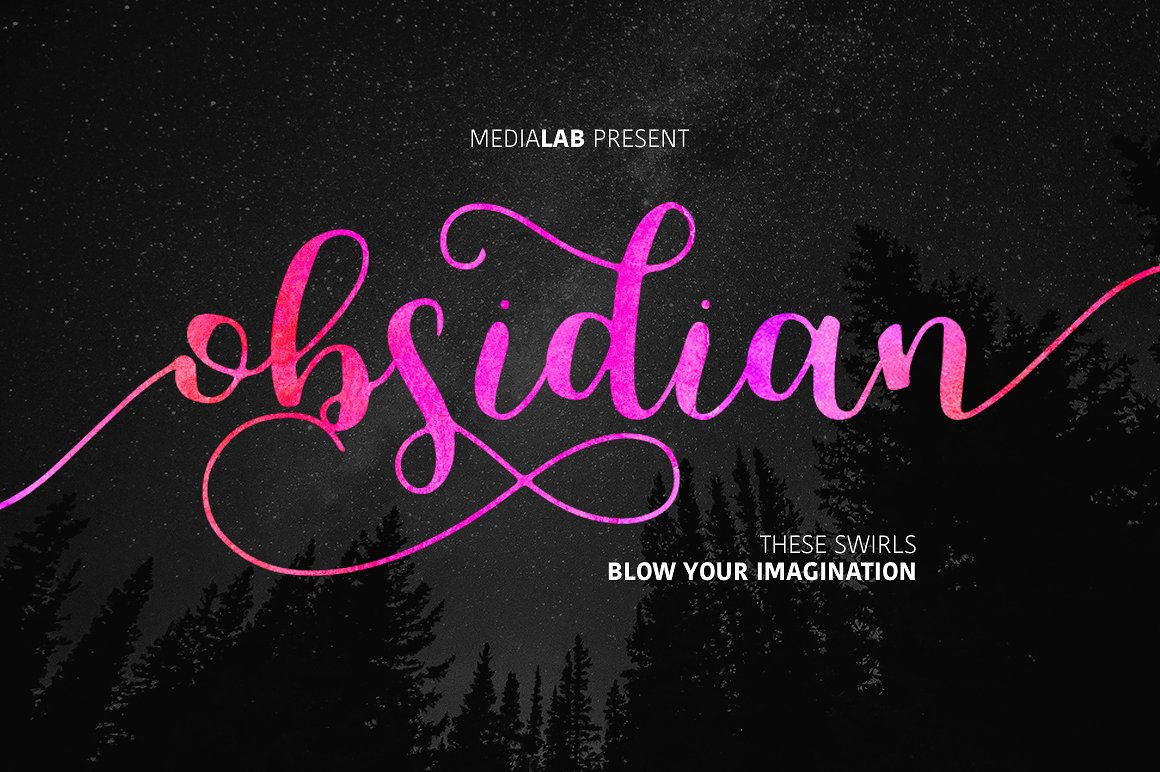
Obsidian Script Font
Obsidian – a new fresh handmade calligraphy font. Very suitable for greeting cards, branding materials, business cards, quotes, posters, and more!
| Classification: | Calligraphy Fonts, Handwritten Fonts, Script Fonts |